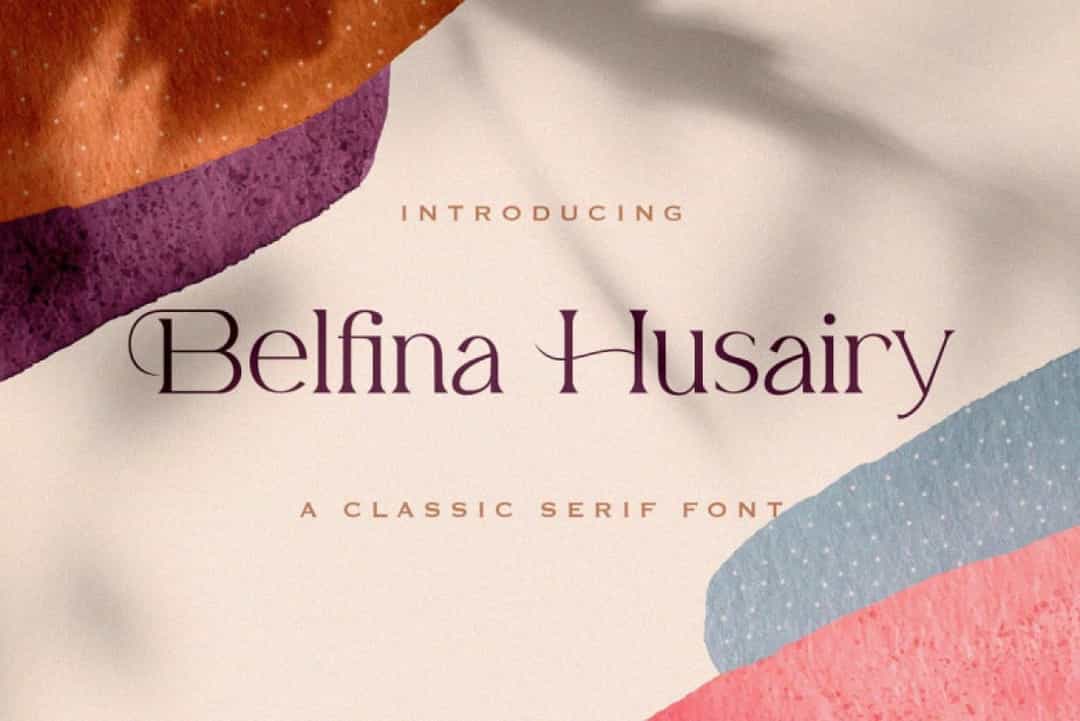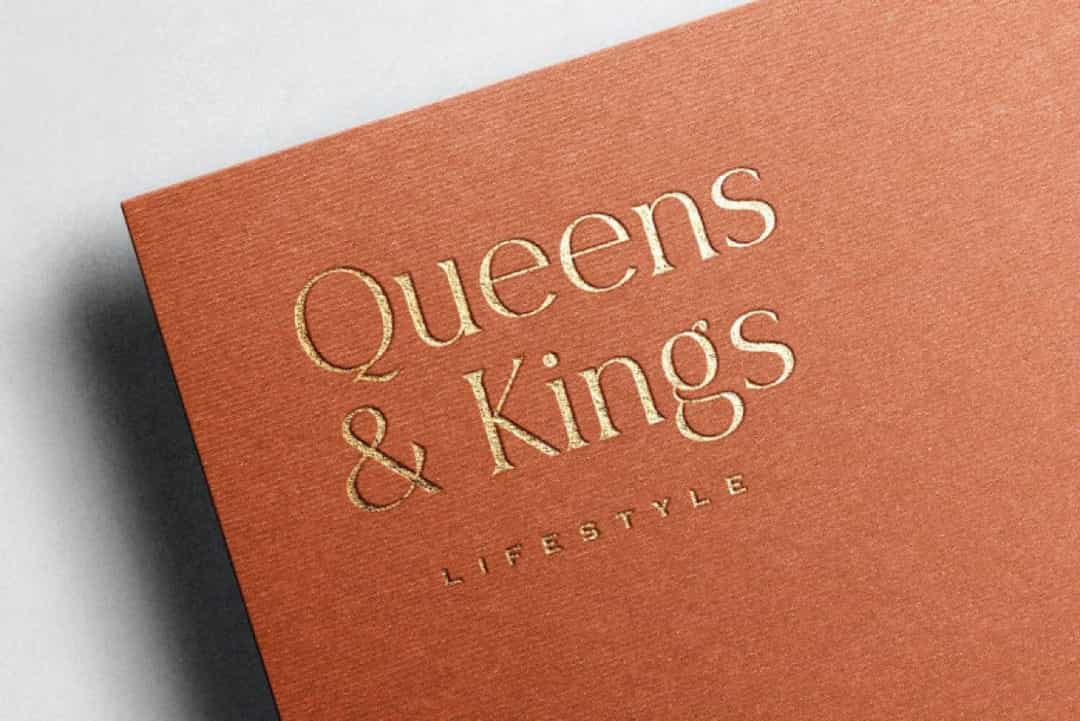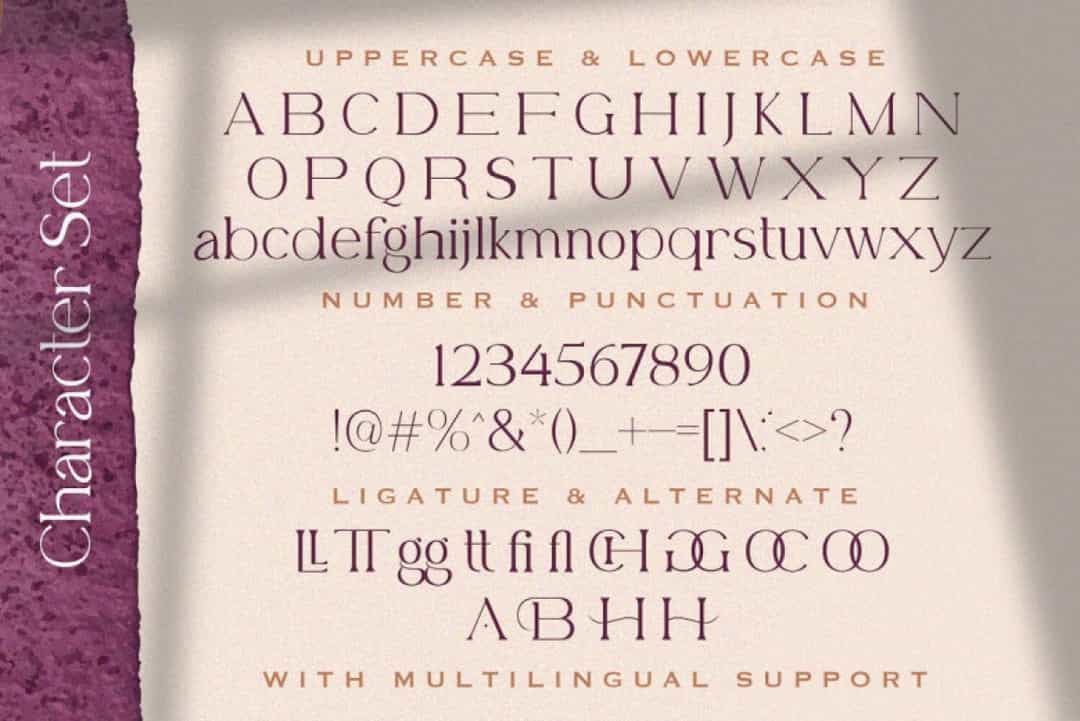
Belfina Husairy is a decorative serif font from the past. Applicable to many different projects and tasks, involve Belfina Husairy in your projects and they will come true! This will give them a fancy look and make them more professional!